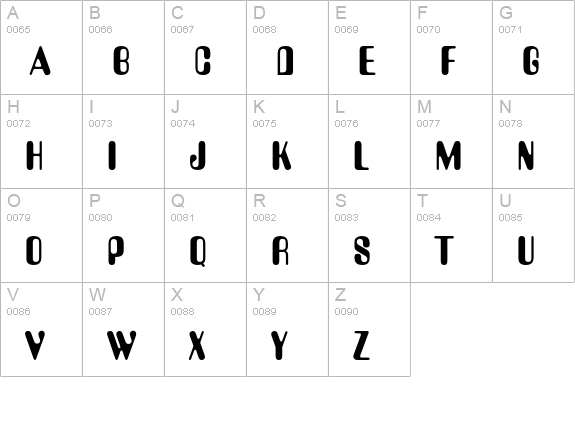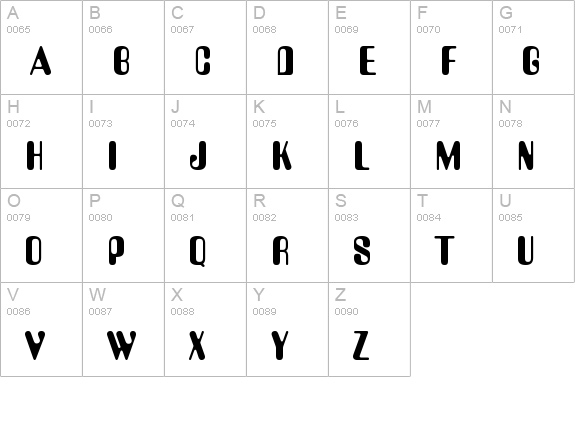
Amelia Font Details
Amelia font is a modern and stylish typeface that exudes elegance and sophistication. With its sleek lines and graceful curves, this font is perfect for adding a touch of class to any design project. Whether you're creating a wedding invitation, a branding logo, or a social media graphic, Amelia font will elevate your work to the next level. What makes Amelia font even more appealing is that it is free to download at FontsMarket.com. This means that you can access this beautiful font without any cost, making it a valuable addition to your font library. So go ahead and enhance your designs with the timeless beauty of Amelia font, available for free at FontsMarket.com.